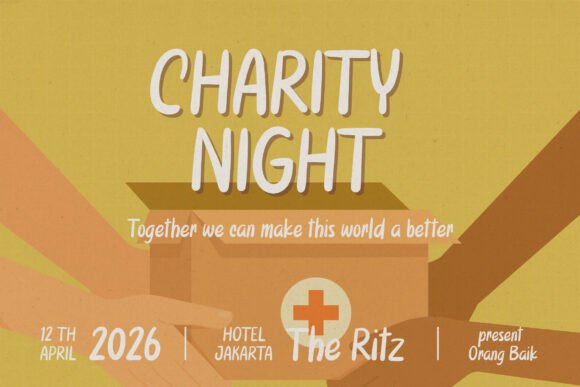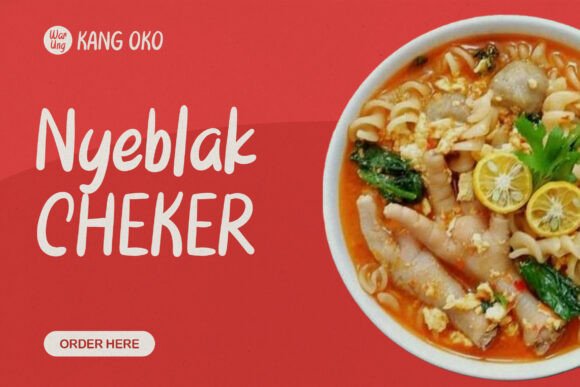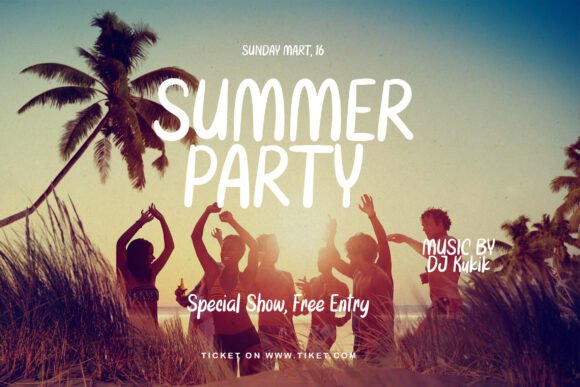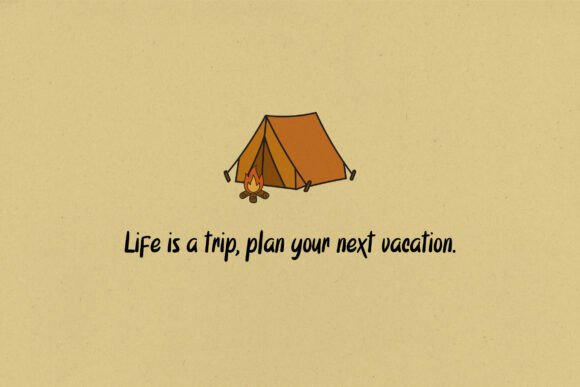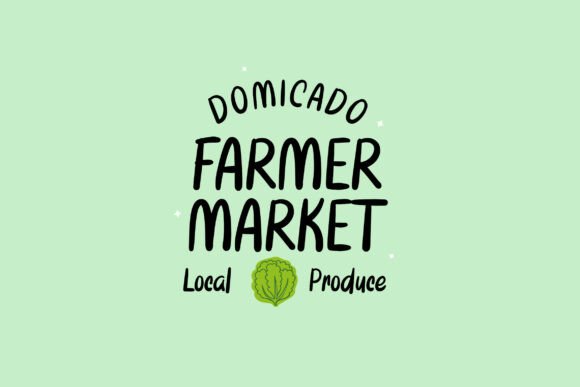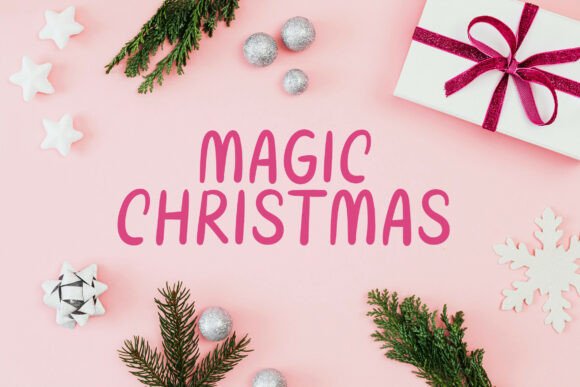
Unlock Your Creativity with Good Time Font
Remember that moment when you stumbled upon the perfect font, and your design suddenly came alive? For designers, it’s a feeling like no other. It’s a rush of excitement and a sense of possibility that can lead to some truly remarkable creations.
One such font that has captured the hearts of many designers is the Good Time Font. This sweet and friendly handwritten font is designed to bring a touch of warmth and personality to your designs. With its natural and unique style, the Good Time Font is incredibly versatile and can be used in a wide range of projects, from invitations to social media graphics.
Whether you’re a seasoned pro or just starting out, the Good Time Font is a valuable addition to any designer’s toolkit. Its ease of use and endless possibilities make it a great choice for anyone looking to add a little extra magic to their designs.
Good Time Font Key Features
- Font Family: Good Time is a sans-serif font designed for use in digital and print media.
- Unique Characteristics: Good Time features a unique blend of modern and vintage elements, giving it a distinctive and eye-catching appearance.
- Kerning and Ligatures: Includes advanced kerning and ligature pairs for improved text readability and aesthetic appeal.
Good Time Font Review
I’ve had the chance to work with the Good Time Font, and I have to say, it’s a unique one. Here are my thoughts:
- The Good Time Font has a great, laid-back vibe to it. It’s perfect for projects that need a casual, approachable feel.
- The font is highly customizable, allowing you to adjust the weight, width, and even the spacing between letters.
- The font family is quite large, so you have plenty of options to choose from.
- The Good Time Font can be a bit too casual for formal projects or applications. It may not be suitable for things like business reports or academic papers.
- The font’s open type features can make it a bit heavy and overwhelming in certain contexts.
Overall, the Good Time Font is a solid choice for projects that need a relaxed, friendly atmosphere. However, it may not be the best fit for more formal or professional projects. With some careful consideration of the font’s limitations, I think it can be a great addition to any designer’s toolkit.
Tips and Tricks
Experiment with different font combinations and styles to achieve a unique look. Use Good Time Font for headings or titles to create a bold and eye-catching effect. For a more subtle look, use the font for body text or captions.
Good Time Font is ideal for:
– Social media graphics and posts
– Event invitations and flyers
– Blog posts and articles
– Marketing materials and brochures
Alternatives to Good Time Font
Good Time Font is a sans-serif font known for its playful, friendly feel. Here are a few alternatives that designers can consider for their projects.
1. Pacifico
Pacifico is a beautiful, elegant script font perfect for creating a sophisticated and luxurious atmosphere. It’s ideal for use in branding, advertising, and editorial design where a touch of elegance is needed. Compared to Good Time Font, Pacifico has a more refined and formal feel, making it suitable for high-end projects.
Great Vibes is a modern, cursive script font that exudes a sense of fun and playfulness. It’s perfect for creating a lively and energetic atmosphere in projects like event invitations, social media graphics, and children’s books. Unlike Good Time Font, Great Vibes has a more fluid and dynamic feel, making it ideal for projects that require a lot of movement and energy.